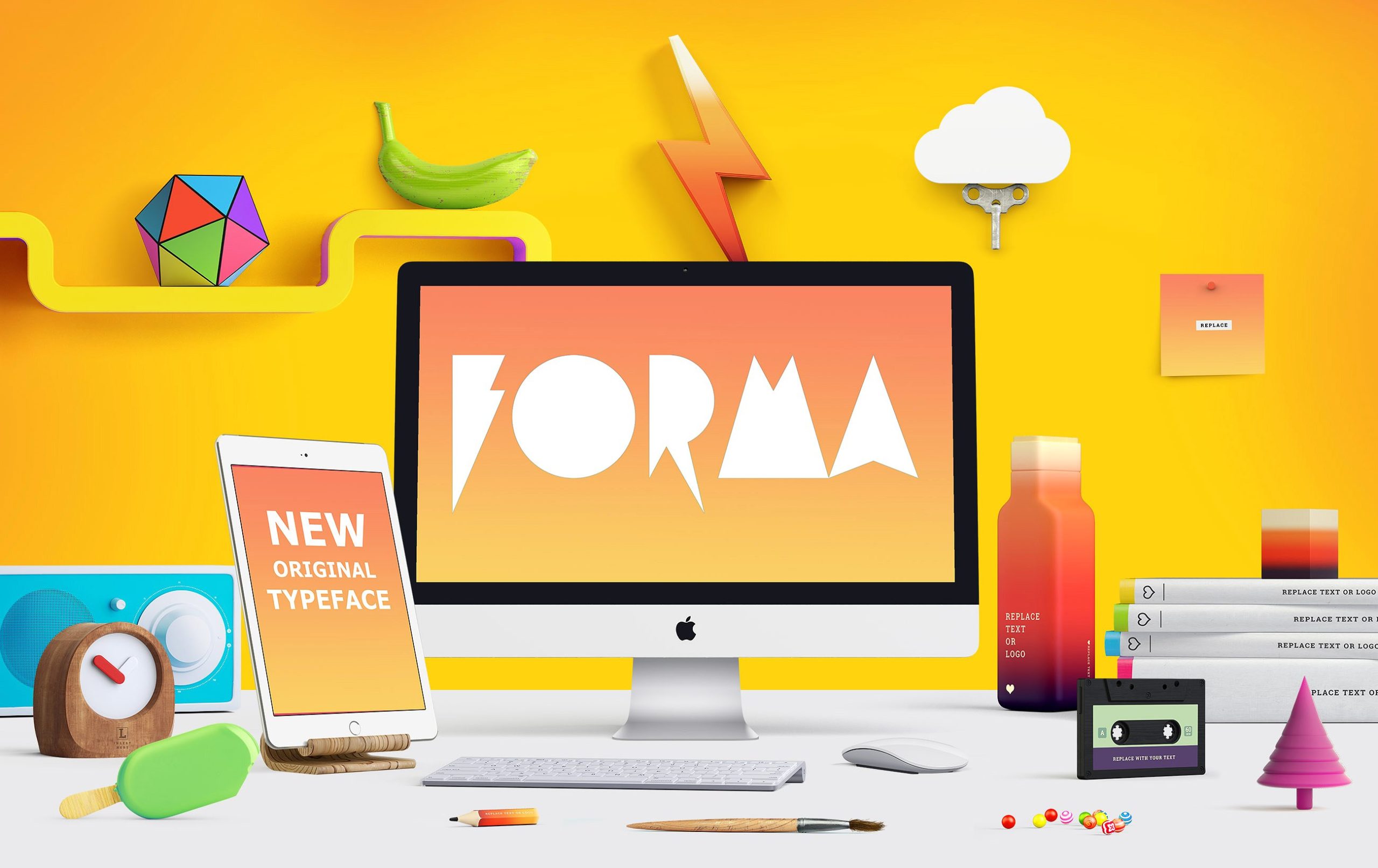
Forma Typeface
Introducing Forma Typeface! Forma designed by Etewut, this is a premium font, are sold on creativemarket, but it was great, it is free today for download. This is a unique and impressive display font. FORMA to made your graphic works more stylish. It’s like silhouette or shadow that highlight your uniqueness from other.